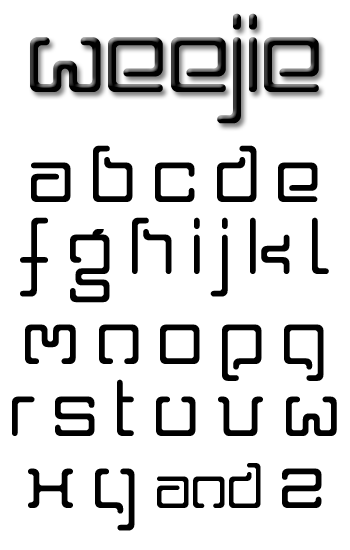
Weejie
Based off of
Wigan
Alternate j and l on the lowercase. Work in progress... :)
This is cool, I like it... perhaps the v is a little bit narrow
Sweet. Love the g.
Thanks guys! Yeah you're right...I widened up the v and the x. Yeah I'm not sure if it fits but the g is my fav too :P
Lovely font, lovely g.